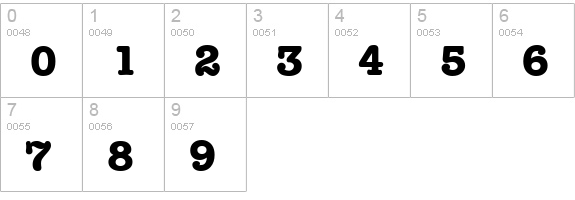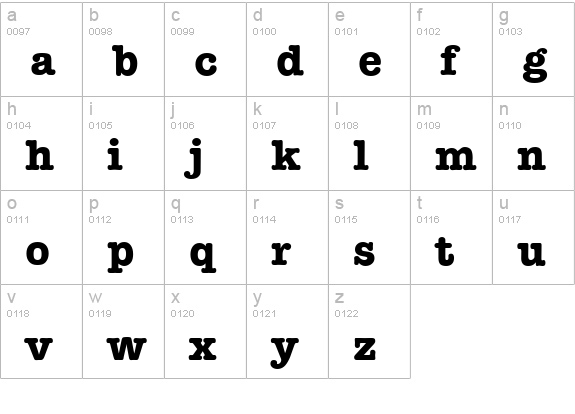
TypewriterSerial-Xbold-Regular is the standard, neutral variant in the TypewriterSerial typeface family \xE2\x80\x94 well suited to general body text, paragraphs, and standard typographic work.
TypewriterSerial-Xbold-Regular font is a modern and sleek typeface that adds a touch of sophistication to any design project. With its bold lettering and clean lines, this font exudes confidence and professionalism. Perfect for use in both digital and print media, TypewriterSerial-Xbold-Regular font is versatile and easy to read, making it ideal for a wide range of applications. The best part? TypewriterSerial-Xbold-Regular font is completely free to download at FontsMarket.com. Simply visit the website and start using this stylish font in your projects today. Whether you're creating a business presentation, designing a website, or working on a creative project, TypewriterSerial-Xbold-Regular font is sure to make a statement. Download it now and elevate your designs with this elegant and contemporary typeface.